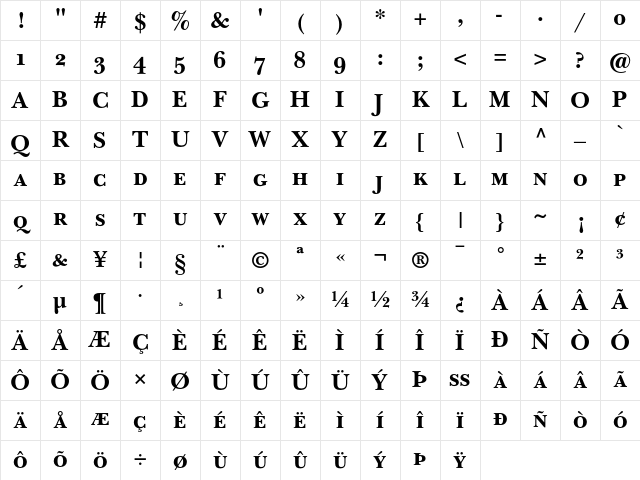
ITC New Baskerville Bold Small Caps & Old Style Figures
Style: Bold Small Caps & Old Style Figures
Design Context for ITC New Baskerville
ITC New Baskerville is a composed and adaptable typeface that performs quietly and consistently across a wide range of design contexts. Its bold stroke weight gives it real presence on the page.